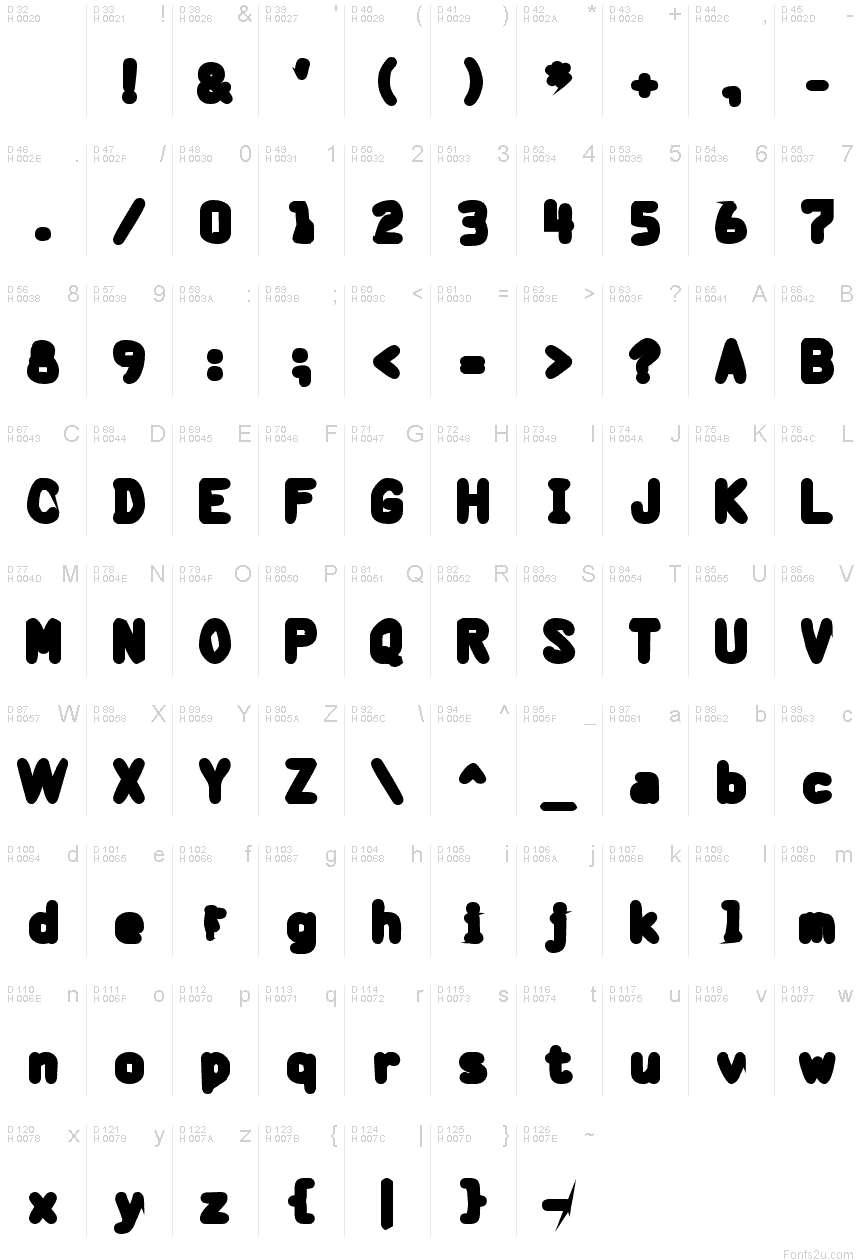
Bantarbjörn Heavy
Bantarbjörn Heavy font by Bantarfestival is a free chunky bubble display typeface with a thick, squishy silhouette that looks almost puffed up with air. Letters in the Bantarbjörn family swell into rounded corners and smooth joins, creating a friendly, candy-coated texture that jumps off the page without feeling sharp or aggressive. There’s a playful, hand-drawn wobble to the shapes that keeps them lively and fun.
Using Bantarbjörn Heavy, you can push big, joyful messages on kids’ posters, birthday invitations, party flyers, candy or snack packaging, toy logos, game titles, and YouTube thumbnails. This free font loves large sizes where its bold curves can really breathe; add a touch of extra tracking for headlines. For supporting text, pair it with a clean geometric sans to keep things readable while Bantarbjörn Heavy handles all the personality.